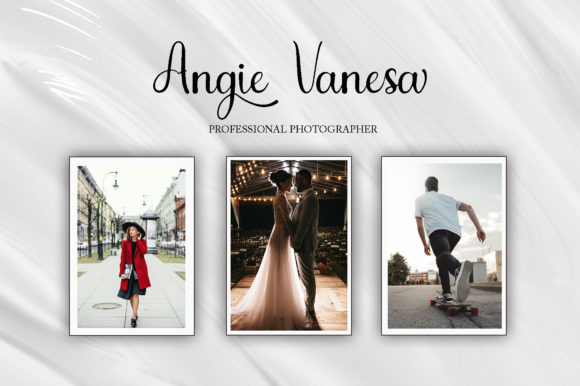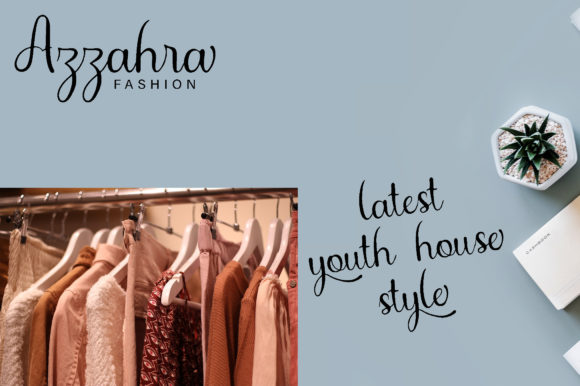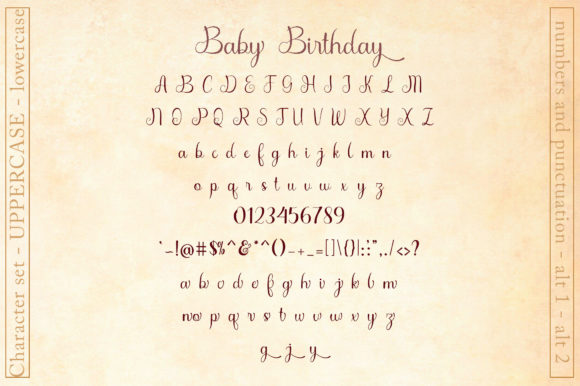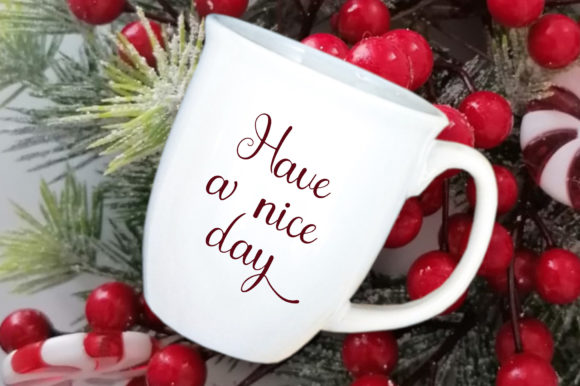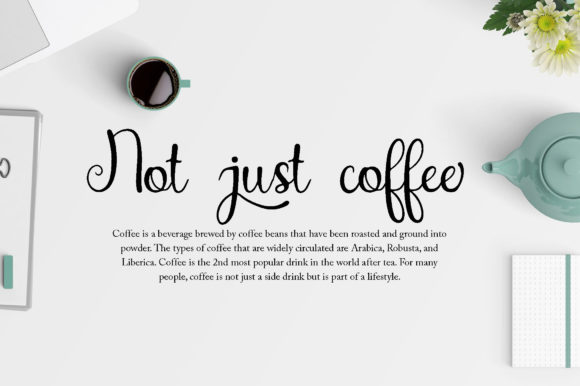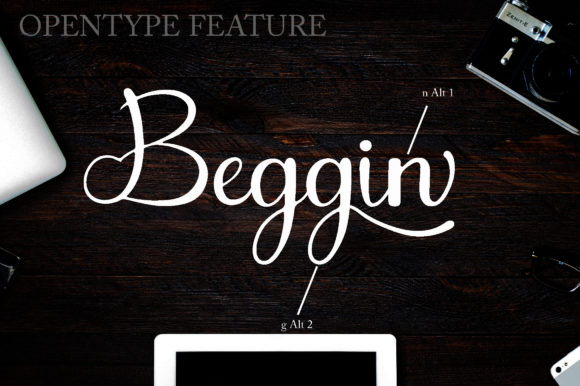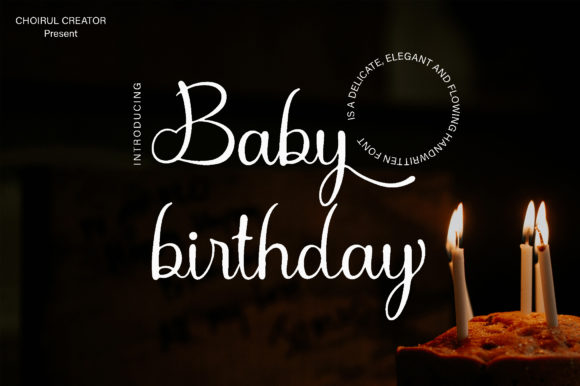
Baby Birthday Font: The Perfect Choice for Delicate Designs
Are you looking for a font that exudes elegance and sophistication for your baby’s birthday design? Look no further than the Baby Birthday font! This beautiful, handwritten font is perfect for creating stunning designs that will make your little one’s special day even more memorable.
What Makes Baby Birthday Font So Special?
Baby Birthday font is a delicate, elegant, and flowing handwritten font that has been carefully crafted to provide beautiful and well-balanced characters. Its unique design makes it an excellent match for a wide range of designs, from baby shower invitations to birthday cards, and even nursery decor.
One of the standout features of the Baby Birthday font is its PUA (Private Use Area) encoding. This means that you can easily access all of the glyphs and swashes, allowing you to add a personal touch to your designs. With PUA encoding, you can effortlessly create stunning text arrangements that will make your designs stand out.
Whether you’re a professional designer or a crafter, the Baby Birthday font is an excellent choice for your projects. Its elegant and flowing design makes it perfect for a variety of applications, including:
• Baby shower invitations and cards
• Birthday party decorations and invitations
• Nursery decor and wall art
• Custom stationery and gift tags
• Digital papers and journals
Why Choose Baby Birthday Font?
There are many fonts available that claim to be elegant and sophisticated, but Baby Birthday font stands out from the rest. Here are just a few reasons why:
• Unique Design: Baby Birthday font has a one-of-a-kind design that will make your projects stand out.
• Elegant and Flowing: The font’s elegant and flowing design makes it perfect for creating beautiful and sophisticated text arrangements.
• PUA Encoded: With PUA encoding, you can easily access all of the glyphs and swashes, giving you complete creative control.
• Versatile: Baby Birthday font is perfect for a wide range of projects, from baby shower invitations to nursery decor.
Tips for Using Baby Birthday Font
To get the most out of Baby Birthday font, here are a few tips:
• Pair with Other Fonts: Experiment with pairing Baby Birthday font with other fonts to create stunning text arrangements.
• Use with Graphics: Combine Baby Birthday font with beautiful graphics and illustrations to create visually stunning designs.
• Experiment with Colors: Try out different color schemes to find the perfect match for your design.
In conclusion, Baby Birthday font is a beautiful and elegant handwritten font that is perfect for creating stunning designs for your little one’s special day. With its unique design, PUA encoding, and versatility, it’s an excellent choice for designers and crafters alike. So why wait? Download Baby Birthday font today and start creating beautiful designs that will make your baby’s birthday truly unforgettable!